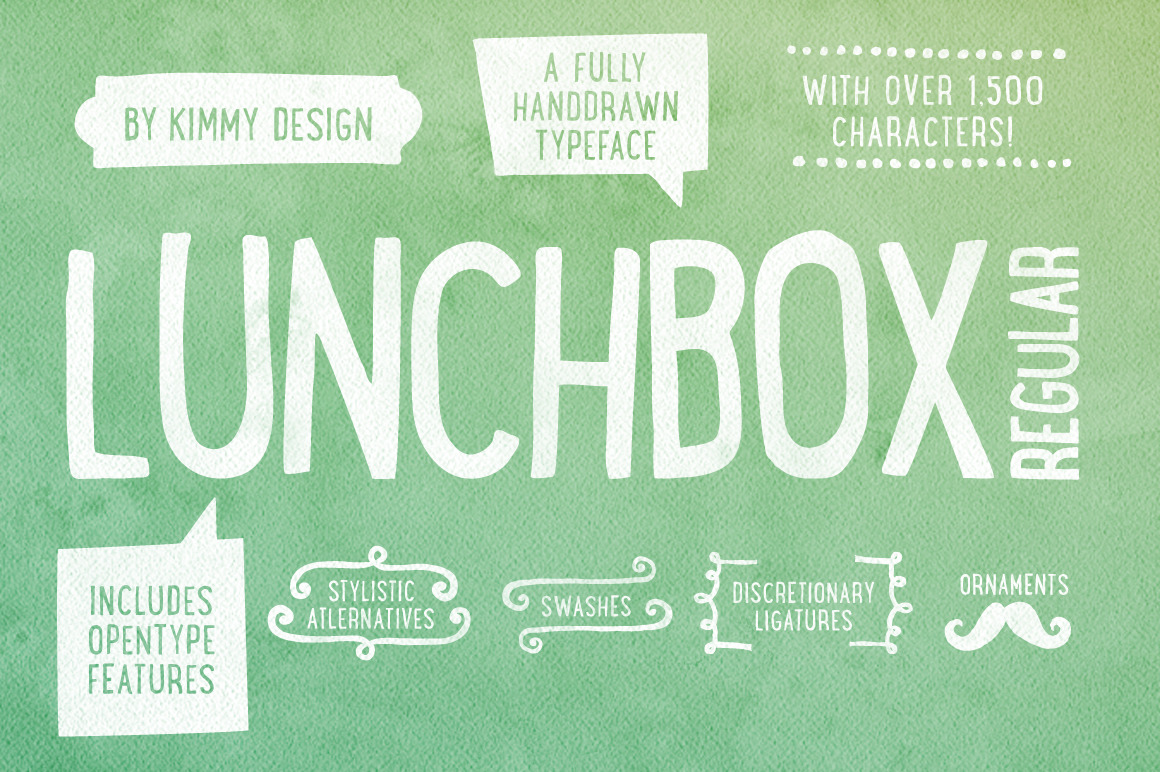
LUNCHBOX Regular +Webfont
Lunchbox Regular is a uniquely handdrawn typeface that gives infinite customizable options and a fully authentic look.
Using Lunchbox’s Opentype features gives access to over 1,500 different characters and basically creates 3 different font styles. Contextual alternatives give each letter 4 different character styles, all cycling through each other to ensure that no two letters ever show up together. There is also a custom set of small caps, each with 4 style variations as well. Stylistic alternatives give an extra handdrawn flourish, loop and slight variation, also with 4 different styles per letter. Discretionary ligatures pertain to both regular all caps Lunchbox as well as stylistic alternatives. It takes special letters and gives a unique interaction with the characters around them, giving your design a unique and personalized look. Swashes also have four style variations to both the regular and stylistic alternatives, as well as lowercase letters with ascenders and descenders.
If you do not use Opentype but are using a program that includes a full glyph panel, you will be able to access each of the style variations you want.
fi - regular ligatures like fi, fl, ff, etc that most fonts include o - contextual alternatives, that will turn on the cycling 4 variations of each letter st - discretionary ligatures will automatically appear as they are typed, or you can pick out specific ones you would like to apply it too A - swashes, like DL you can either apply it to the entire text or choose which letters you'd like to use it with aa - stylistic alternatives, if this and contextual alternatives are turned on then it automatically cycles through the 4 variations for each letter's stylistic alternatives There are two other options but they don't apply to this font so no need to be concerned if they don't do anything when you click them.